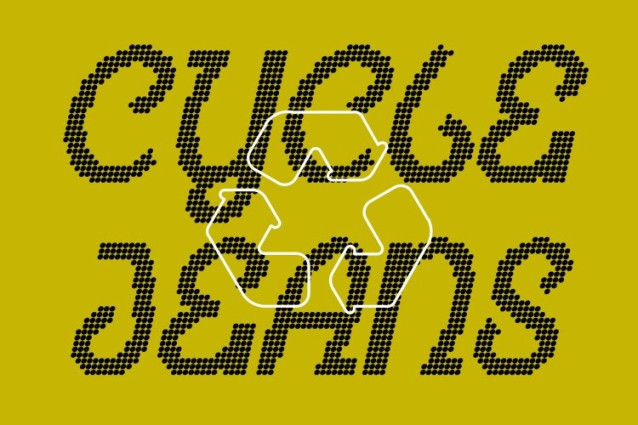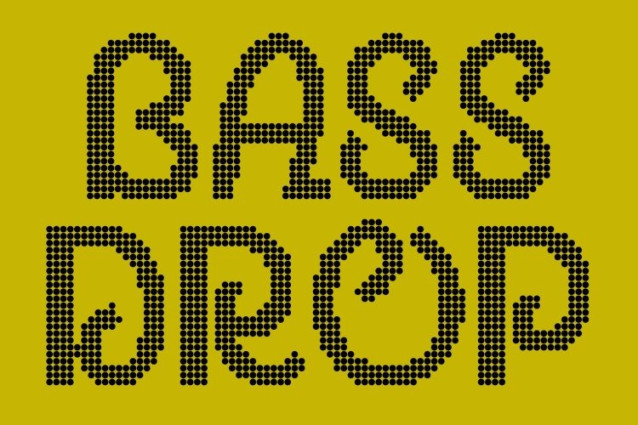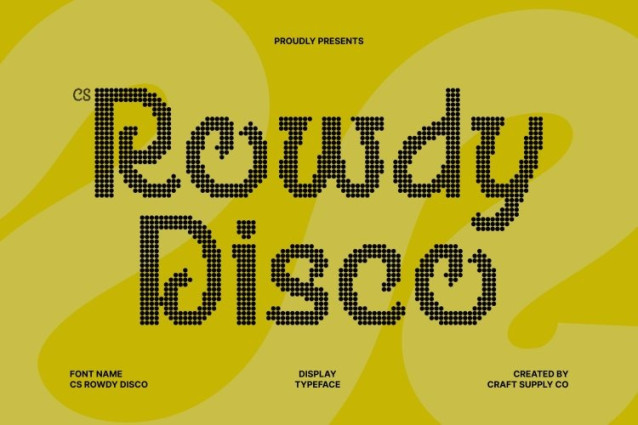
CS Rowdy Disco Font
CS Rowdy Disco Font – This transforms the bold experimental sans serif into a vibrant dotted display font inspired by the glowing lights and lively atmosphere of disco culture. Each character is composed of small circular dots that create a sparkling texture, bringing a sense of rhythm, movement, and celebration to the typography.
Quirky Letterforms with Rhythmic Dot Patterns
The distinctive and unconventional letterforms remain at the heart of the design, preserving the font’s experimental spirit. The dotted construction adds a rhythmic visual effect reminiscent of illuminated dance floors, retro party lights, and energetic nightlife visuals. This blend of unique shapes and dotted texture turns every word into a lively visual statement.
Bold Creativity with Playful Disco Character
The quirky proportions and expressive forms become even more dynamic in this disco version. The circular dots soften the bold geometry while amplifying the playful energy, resulting in a typeface that feels fun, stylish, and creatively fearless. It’s a perfect fusion of experimental typography and cheerful party vibes.
Perfect for Creative and Energetic Designs
This font shines in posters, logos, packaging, branding, social media graphics, and editorial layouts that require strong personality and visual excitement. Its dotted texture ensures the font feels festive and memorable while maintaining the bold creativity of the original design.